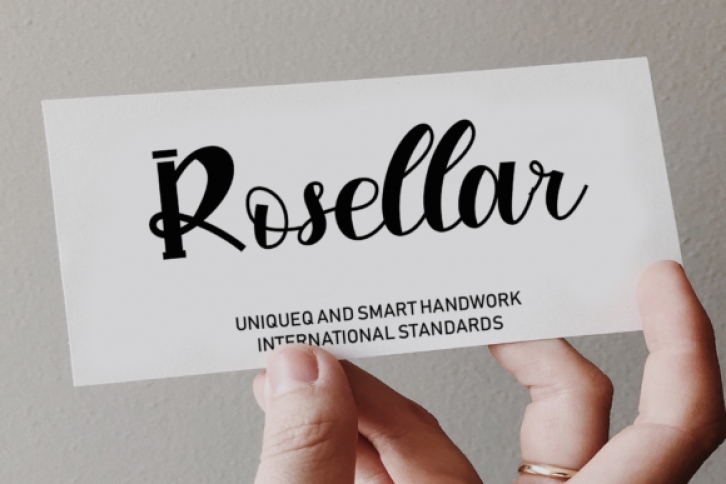
Rosellar is a unique and attractive handwritten font. This will be a really fun touch, add to your most creative ideas and watch how they bring them to life. Add this display font to your every creative idea and watch how it makes it stand out!